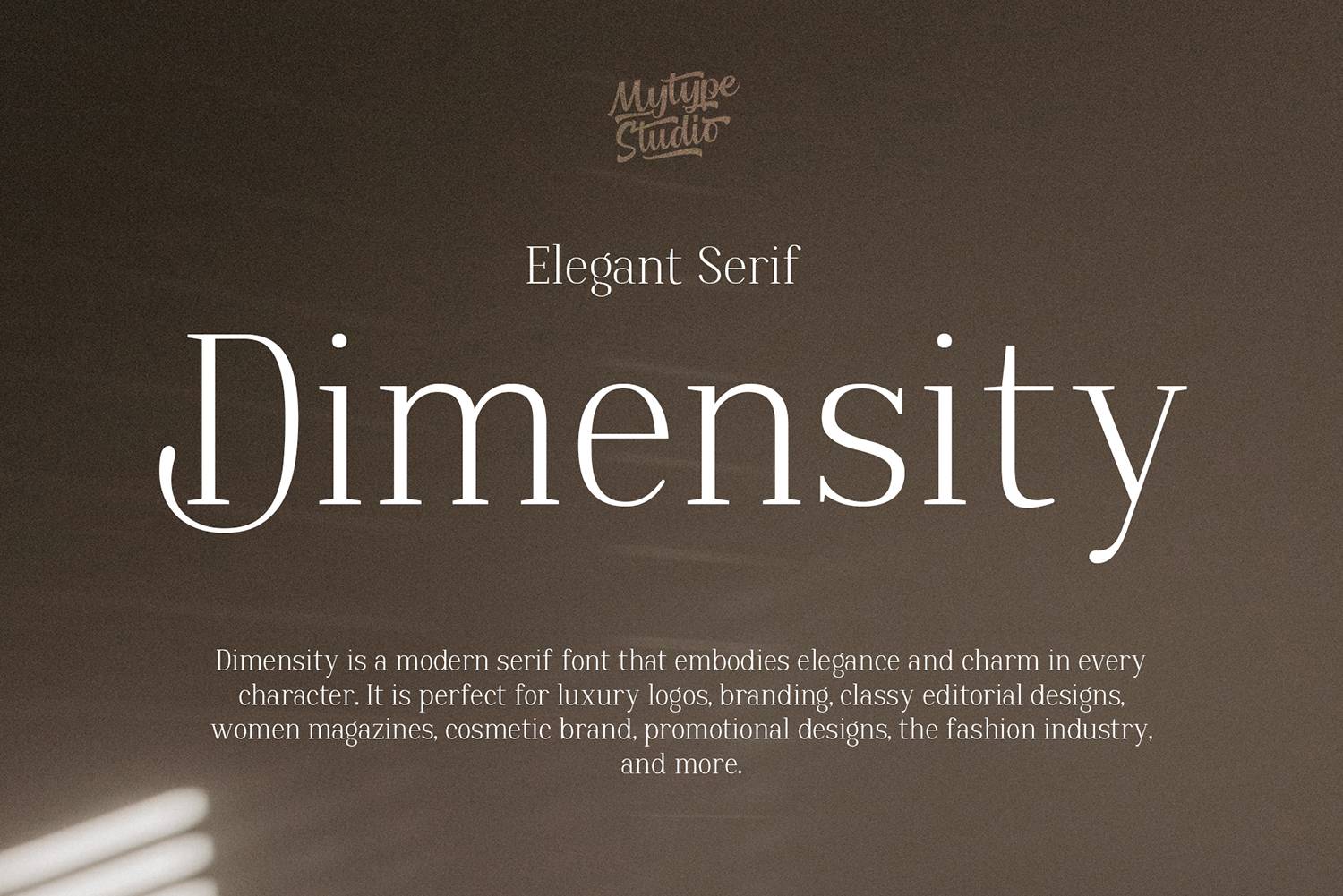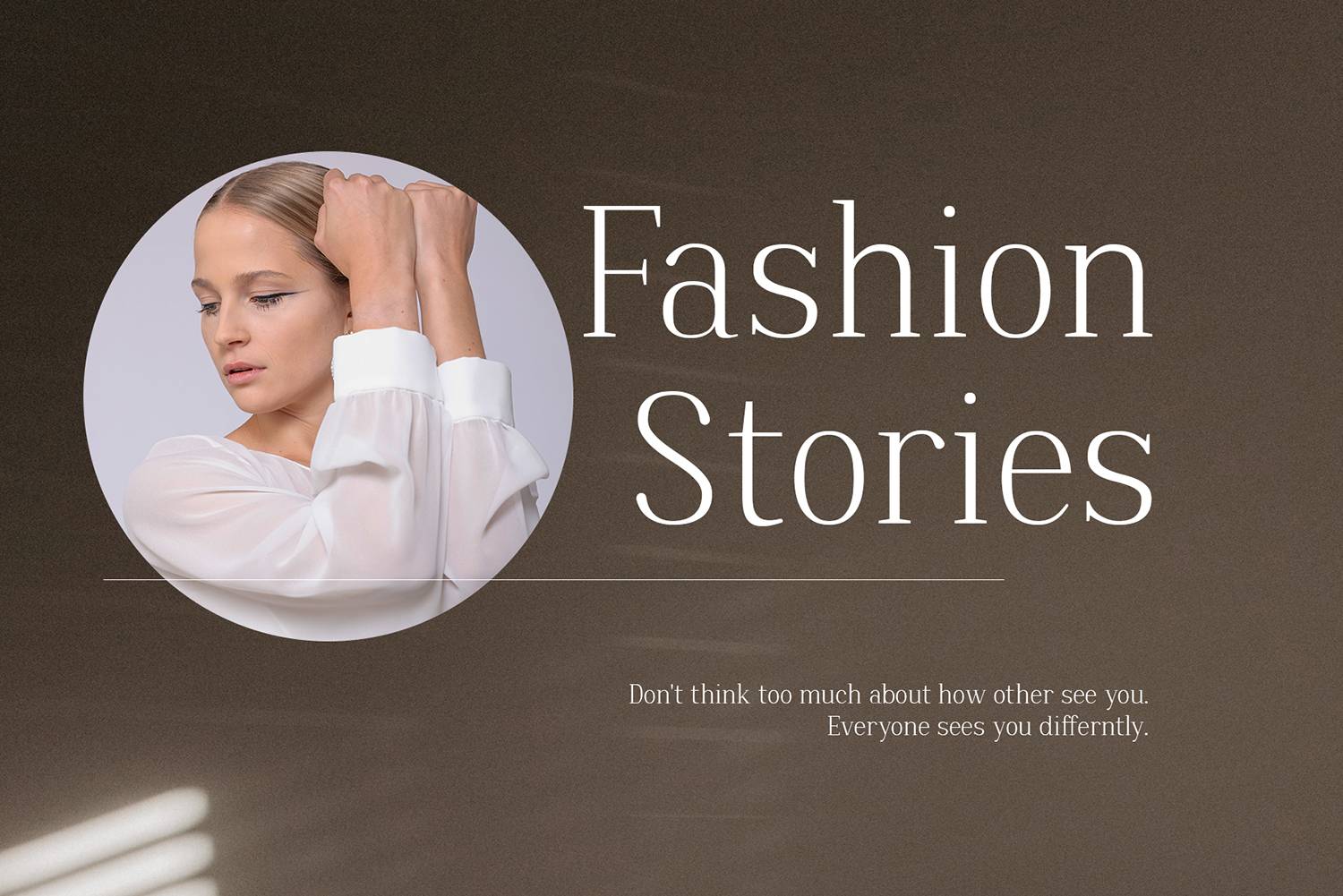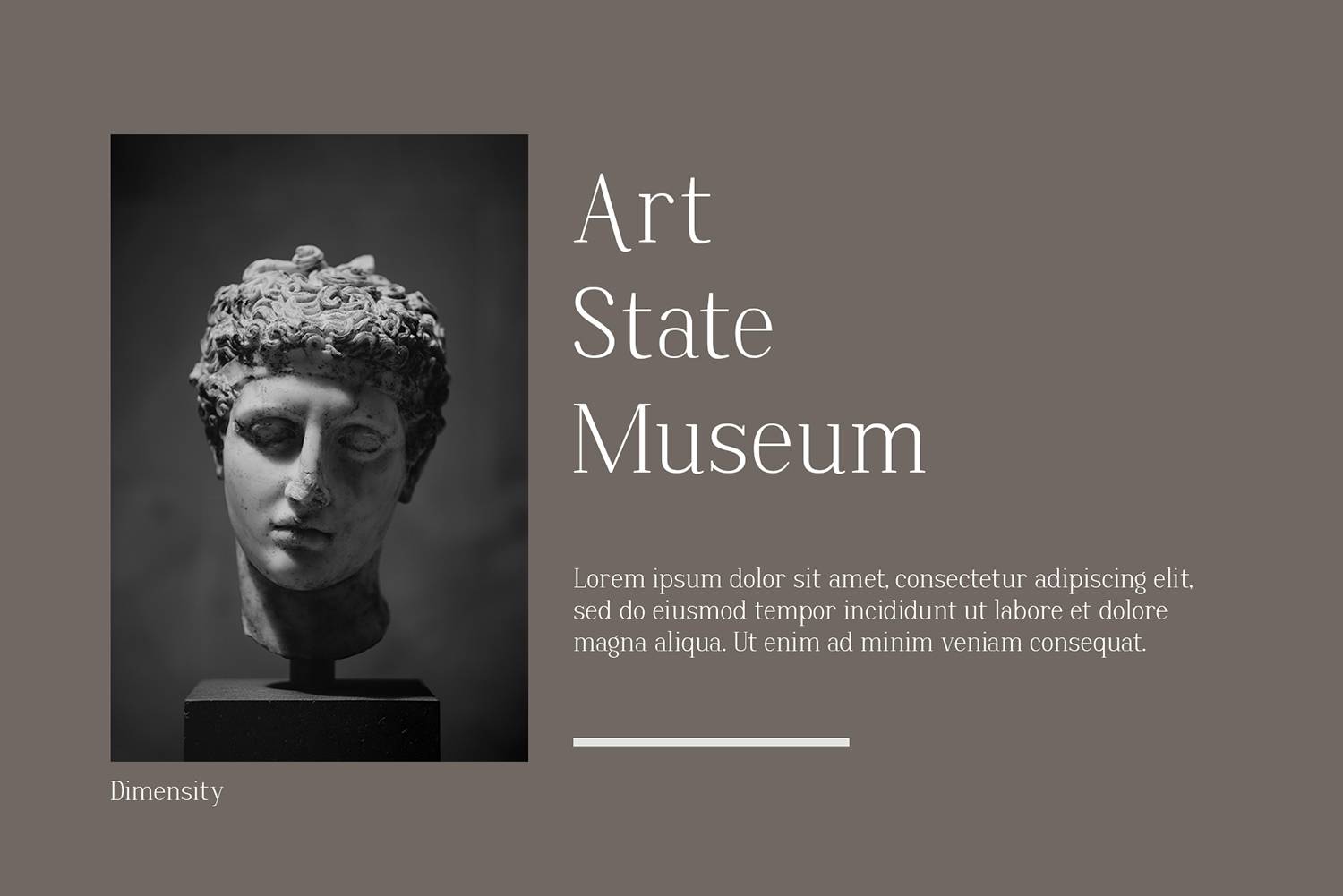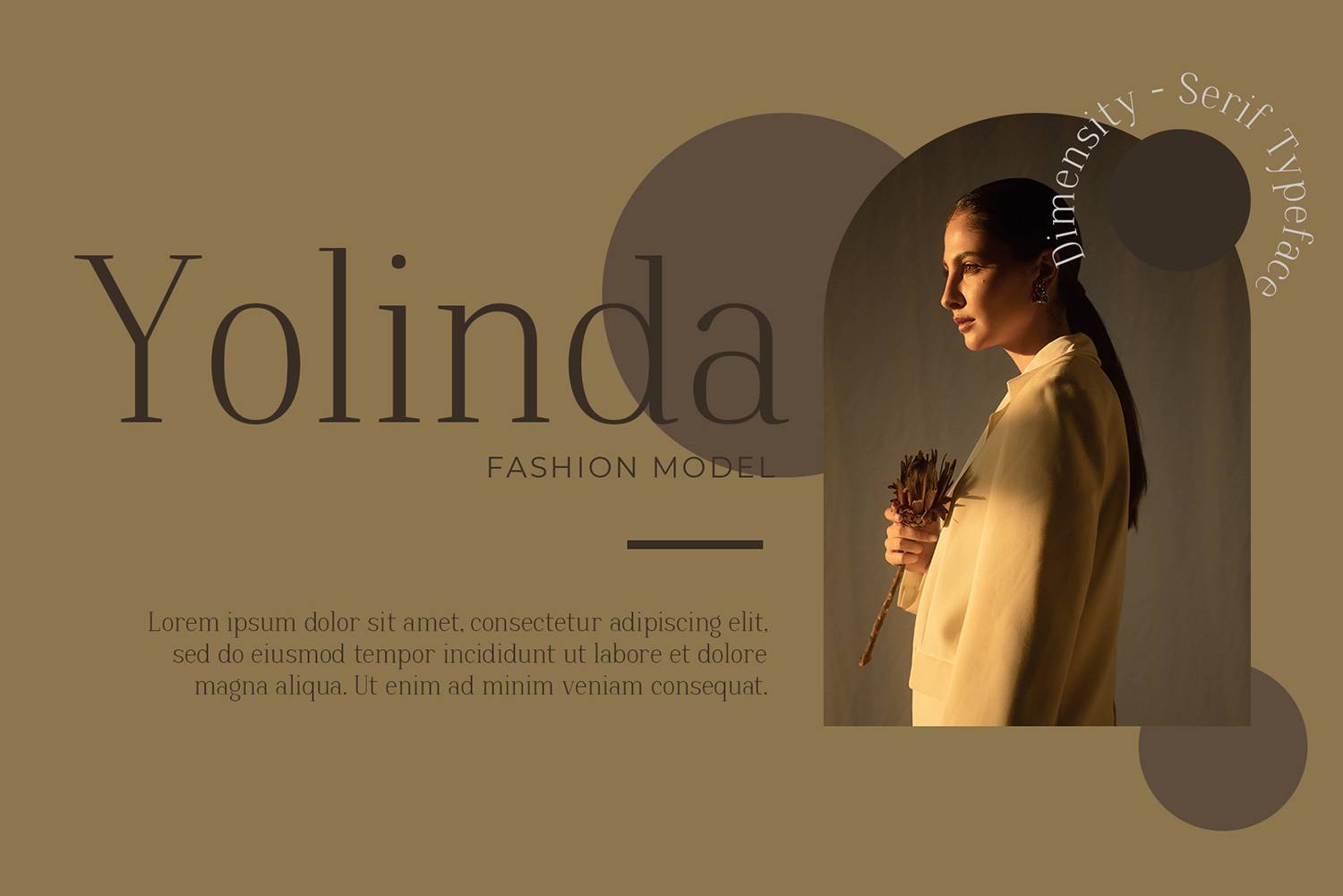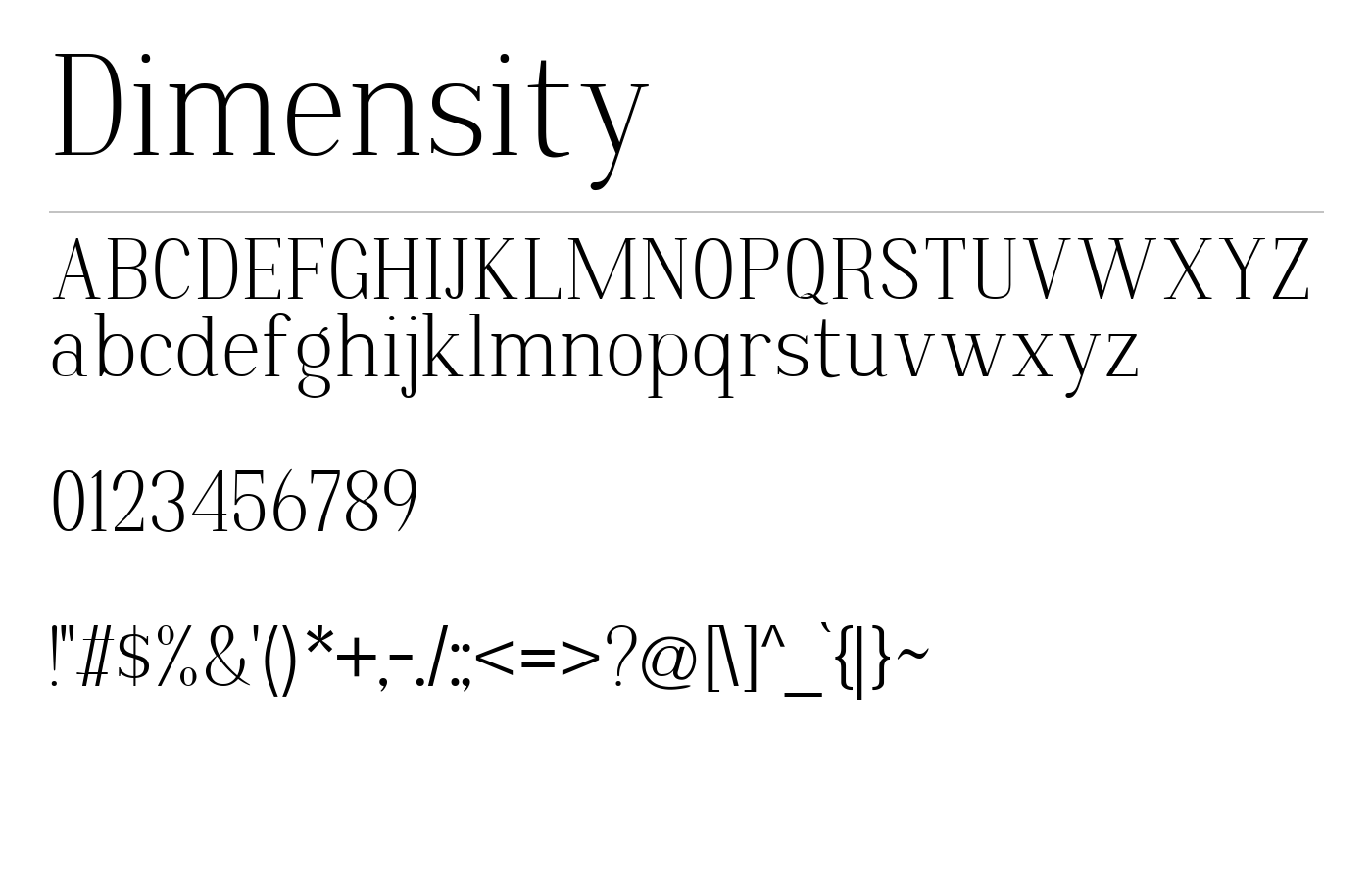
Dimensity is a delicate serif font characterized by its high contrast between thin and thick strokes, slender letterforms, and elegant bracketed serifs. Its refined, narrow structure and classic details give it a sophisticated and timeless appeal, making it ideal for upscale editorial design, luxury branding, and stylish headlines where grace and readability are key.
Dimensity Font
About Dimensity Font
| Font family | Dimensity Font |
| Designer | Mhd Husaini |